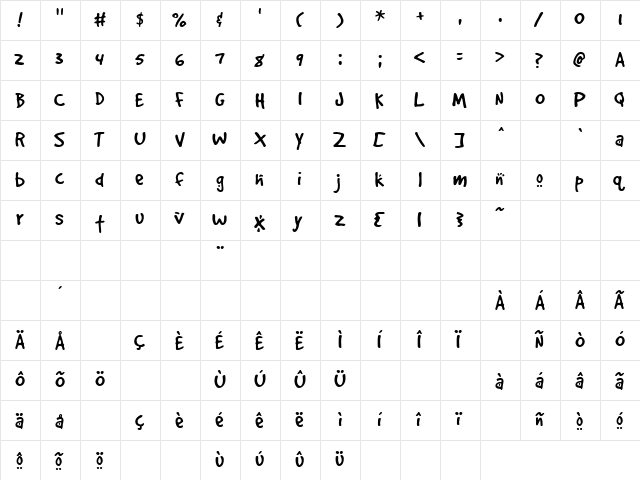
GoodDogCool Regular
Design Context for GoodDogCool Typeface
GoodDogCool is a composed and adaptable typeface that performs quietly and consistently across a wide range of design contexts.